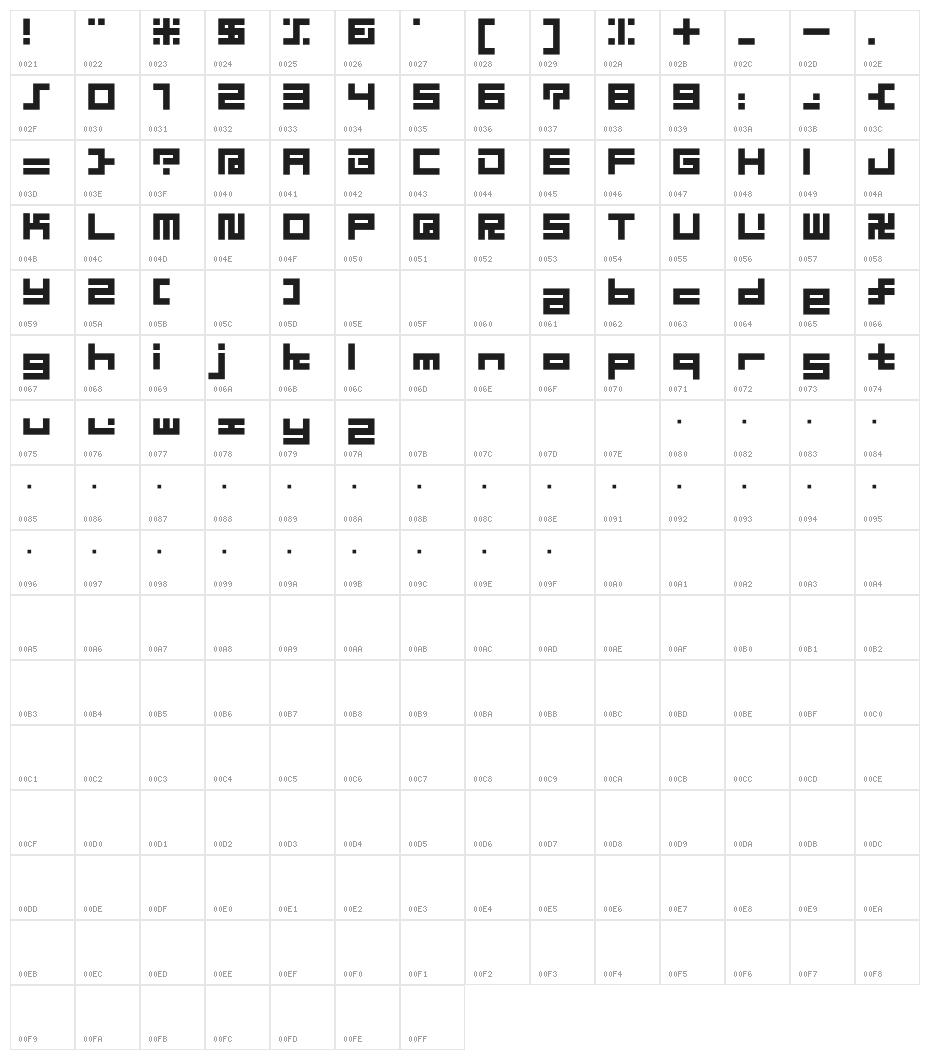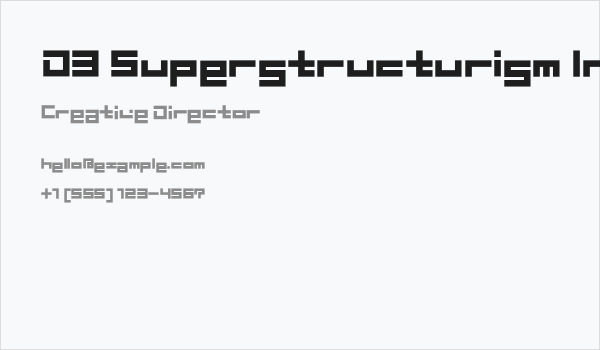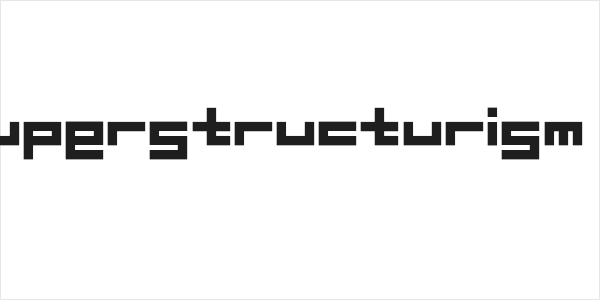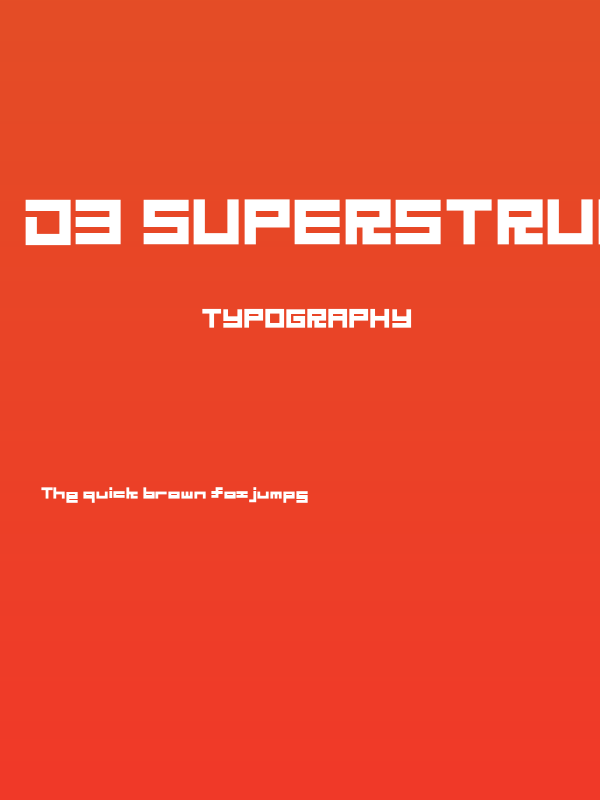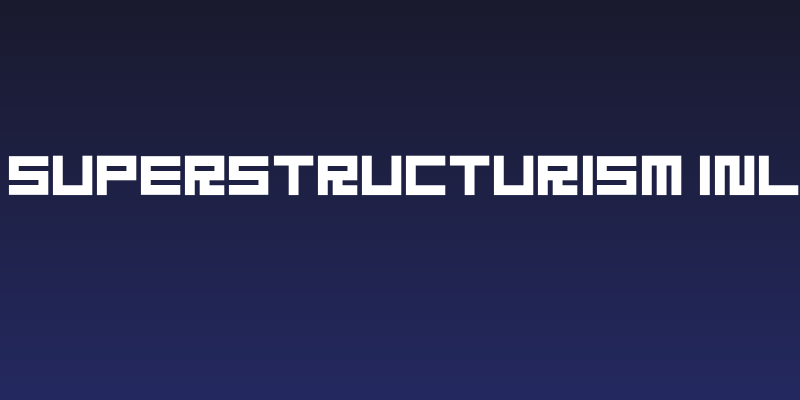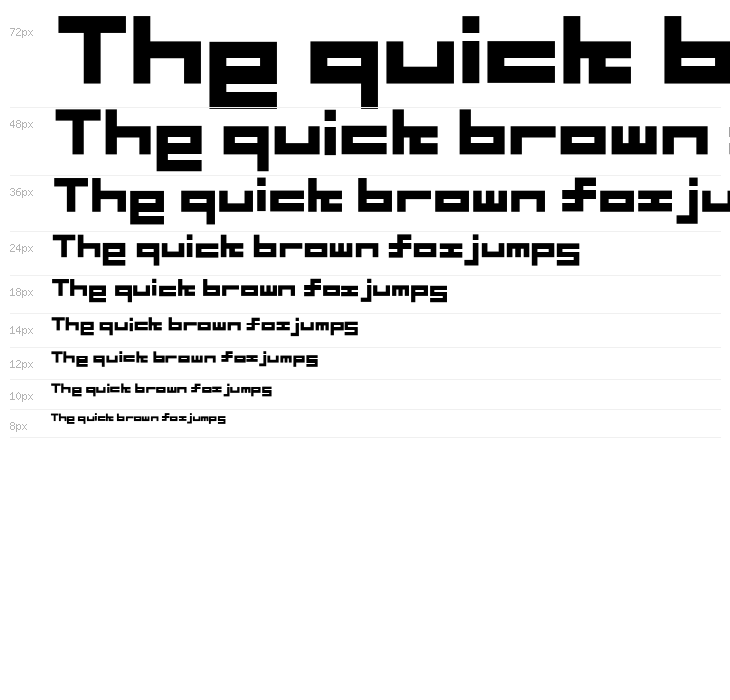
D3 Superstructurism Inline Font
D3 Superstructurism Inline Description
This font features a bold, geometric design with a futuristic and digital aesthetic. Each character is constructed with sharp angles and straight lines, creating a blocky and structured appearance. The uppercase and lowercase letters maintain a consistent height, contributing to a uniform look across the text. The numerals and special characters follow the same design principles, ensuring cohesion throughout. This font's style is reminiscent of digital displays or retro gaming interfaces, making it ideal for projects that require a modern, tech-savvy feel.
Proposed ProjectsIdeal for technology branding, video game titles, digital interfaces, and sci-fi themed designs.